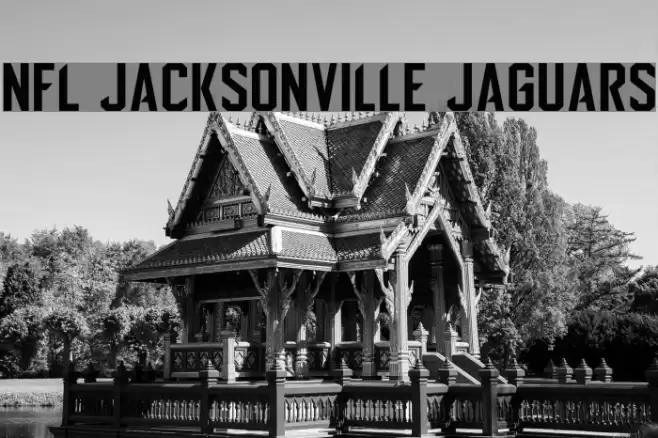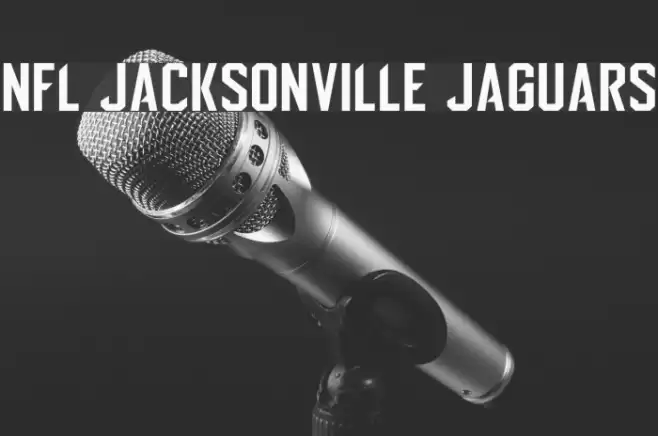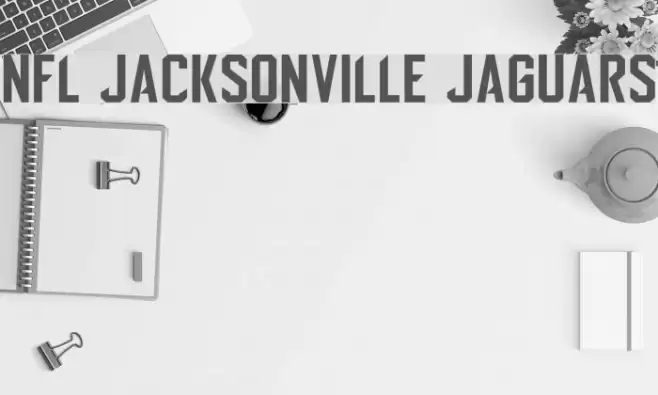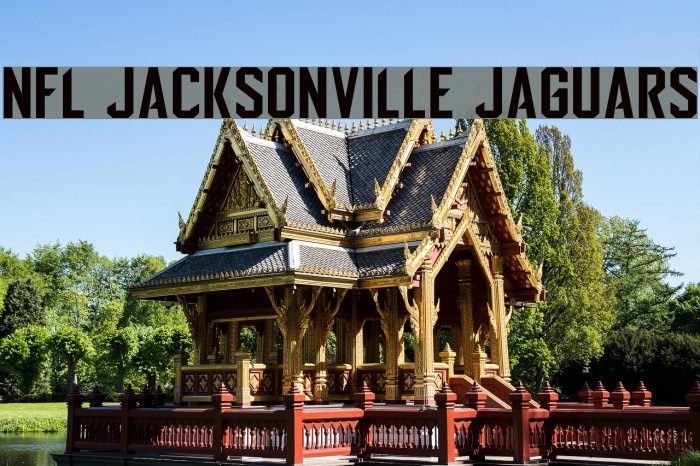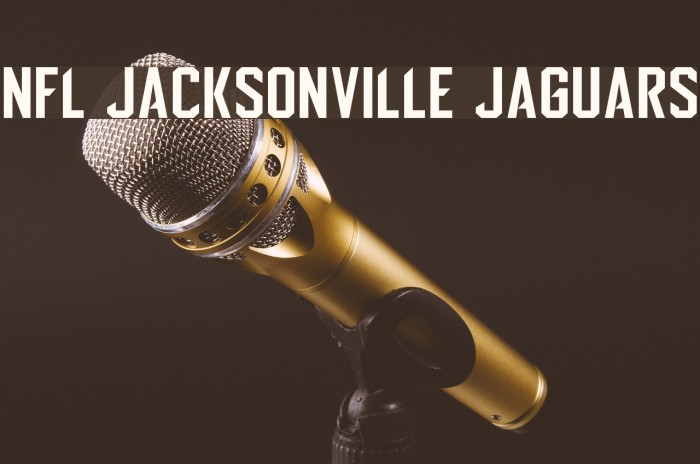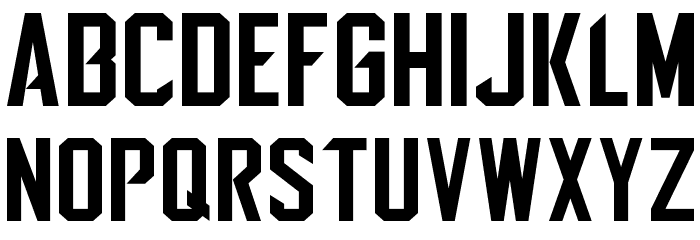
NFL Jacksonville Jaguars Font
NFL Jacksonville Jaguars Description
This font features a bold and angular design, characterized by sharp edges and a geometric structure. The uppercase letters are uniform in height, with a consistent stroke width that gives it a strong and impactful appearance. The numbers and special characters maintain this boldness, ensuring a cohesive look across all characters. The style is reminiscent of sports or team branding, conveying a sense of strength and determination. Its clean lines and lack of serifs make it highly legible, even at smaller sizes, while the angular cuts add a modern and dynamic flair.
A bold, angular font with a geometric and modern design from Uncategorized fonts.
- Proposed Projects: Ideal for sports branding, team logos, merchandise, posters, and promotional materials.